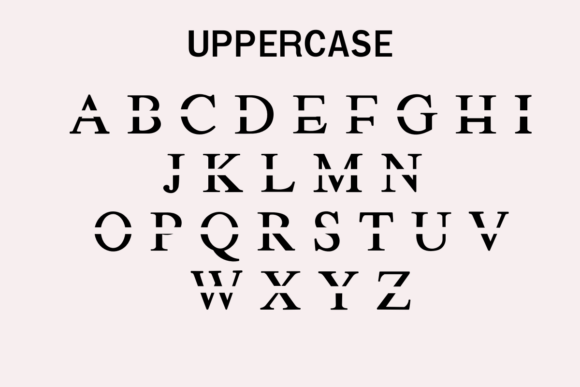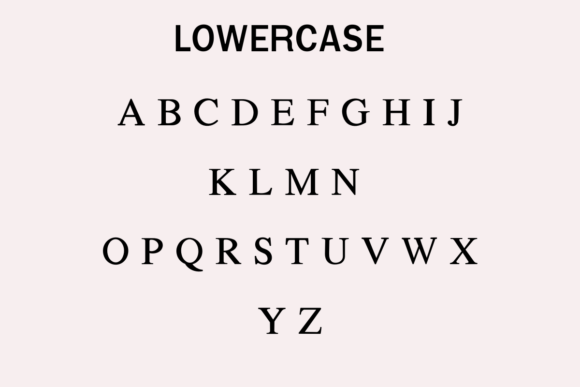
I Love You Mom Font
I Love You Mom is a refined and elegant serif typeface designed to express love, sophistication, and timeless beauty. Perfect for Mother’s Day cards, wedding invitations, packaging, and feminine branding, this font adds a graceful and heartfelt touch to every design. Its clean lines and subtle charm make it both modern and classic.